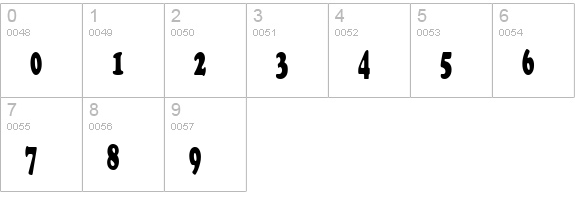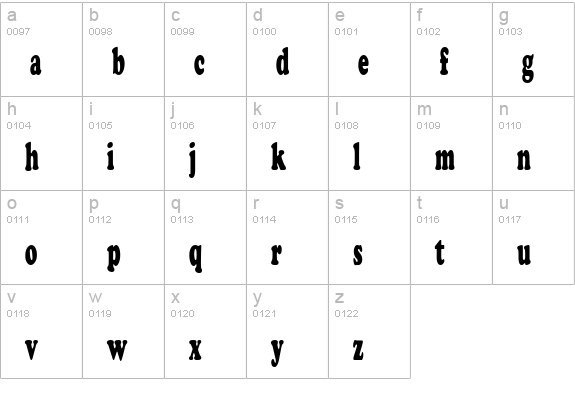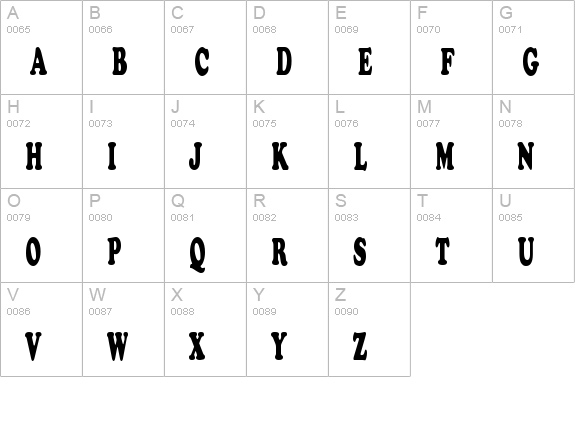
Cupid-Condensed Normal Font Details
Cupid-Condensed Normal is the standard, neutral, condensed-width variant in the Cupid typeface family \xE2\x80\x94 well suited to general body text, paragraphs, and standard typographic work.
Cupid-Condensed Normal font is a sleek and modern typeface that exudes elegance and sophistication. With its condensed style, this font is perfect for creating eye-catching headlines, titles, and logos. The clean lines and balanced proportions of Cupid-Condensed Normal make it a versatile choice for a wide range of design projects. Best of all, Cupid-Condensed Normal font is available for free download at FontsMarket.com. Whether you're a professional designer or a casual hobbyist, you can easily access this high-quality font to enhance your creative work. Don't miss out on the opportunity to add Cupid-Condensed Normal to your font collection today!